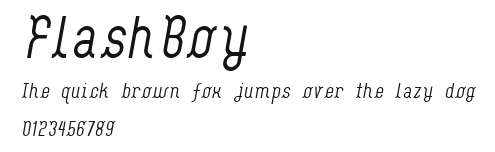
• Font Name: FlashBoy
• Full Font Name: FlashBoy
About FlashBoy.ttf
FlashBoy.ttf is a modern, elegant sans-serif font designed for ultimate readability and visual harmony. Perfect for branding, headlines, web design, and print materials.